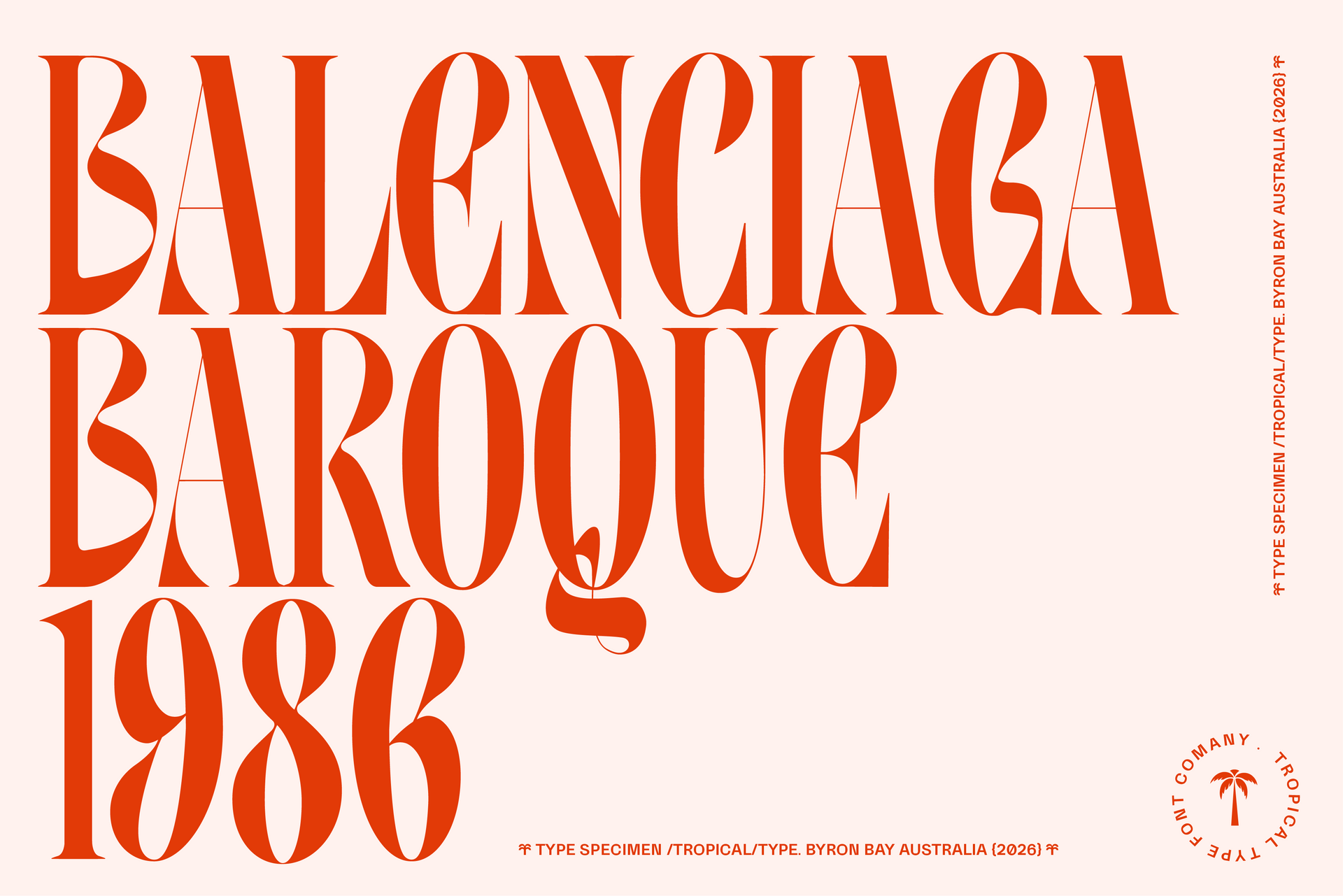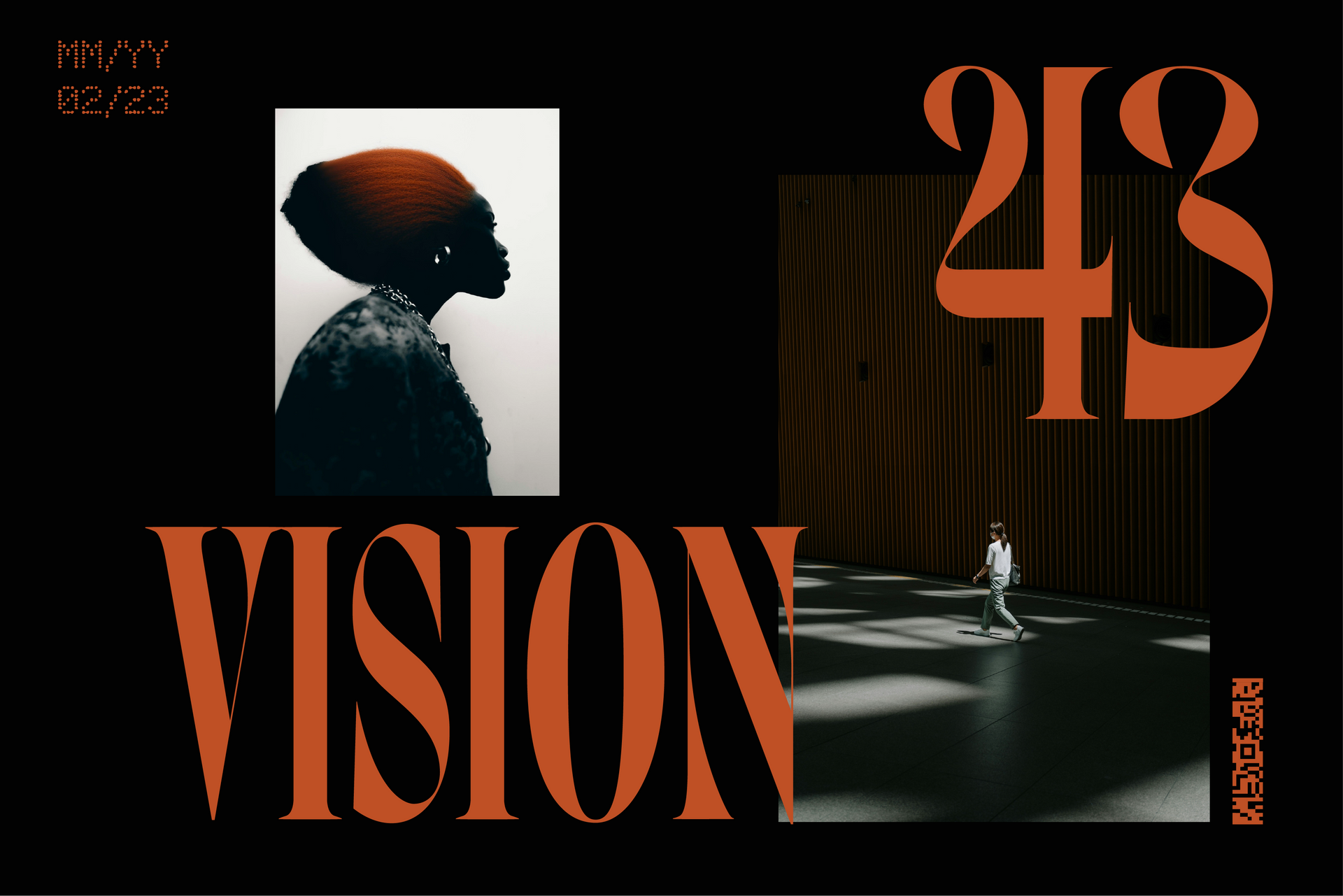
Insignia Serif
Insignia is bold and brazen, sharp and stylish - A serif not to be messed with!
One time I was in Paris and a stunning woman strode past in high leather books and a pitch black trench coat. I smiled at her but alas, her stare cut right through me, and off she went like I was nothing. She personified Insignia Serif. An edgy, all caps condensed typeface to cut through the crap in the best possible way!
Non English glyphs included:
Ą Á  À Ä Å Ã Æ Ć Ç Ę É Ê È Ë Í Î Ì Ï Ł Ń Ñ Ó Ô Ò Ö Õ Ø Œ Ś Š Ú Û Ù Ü Ý Ÿ Ź Ż